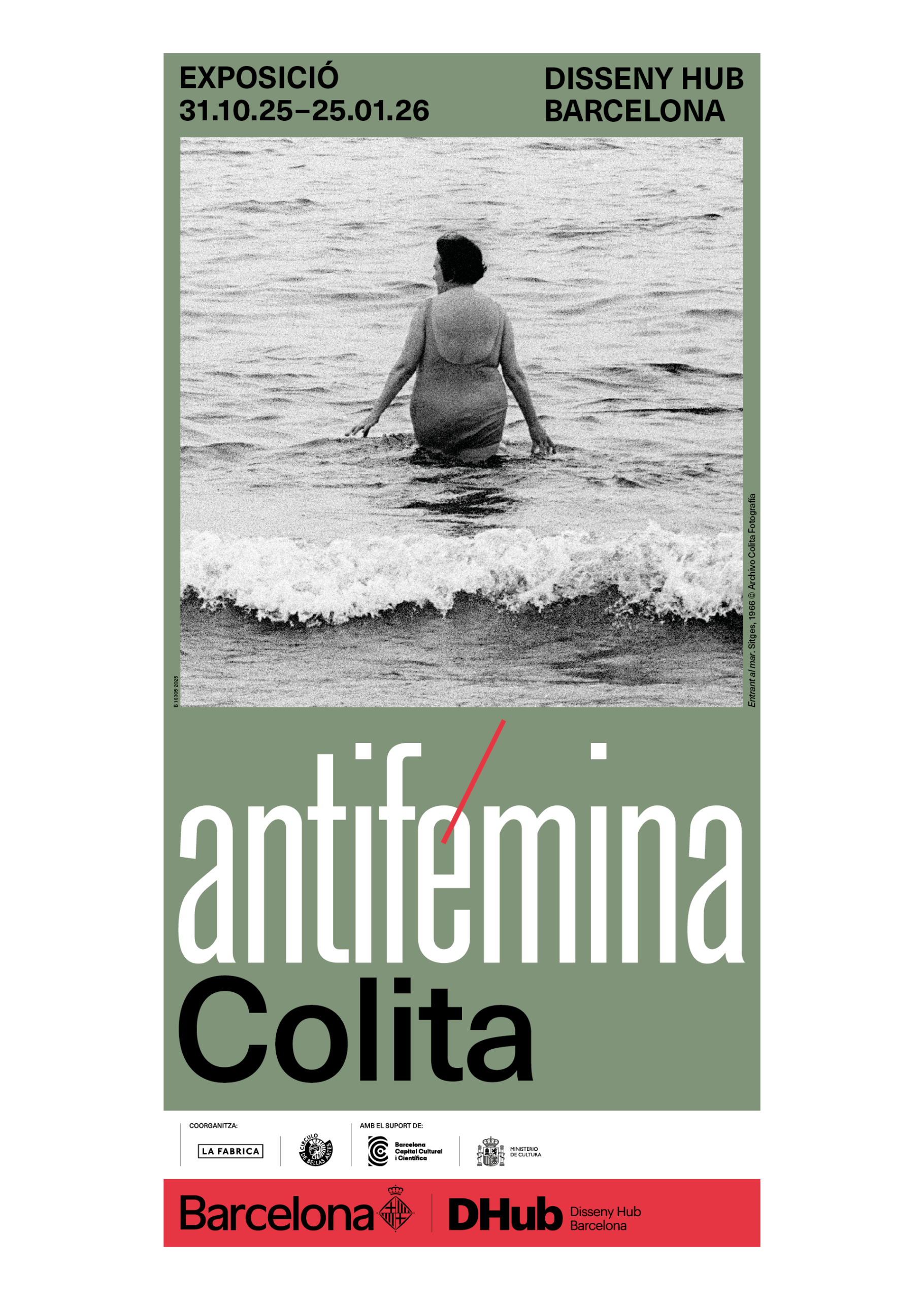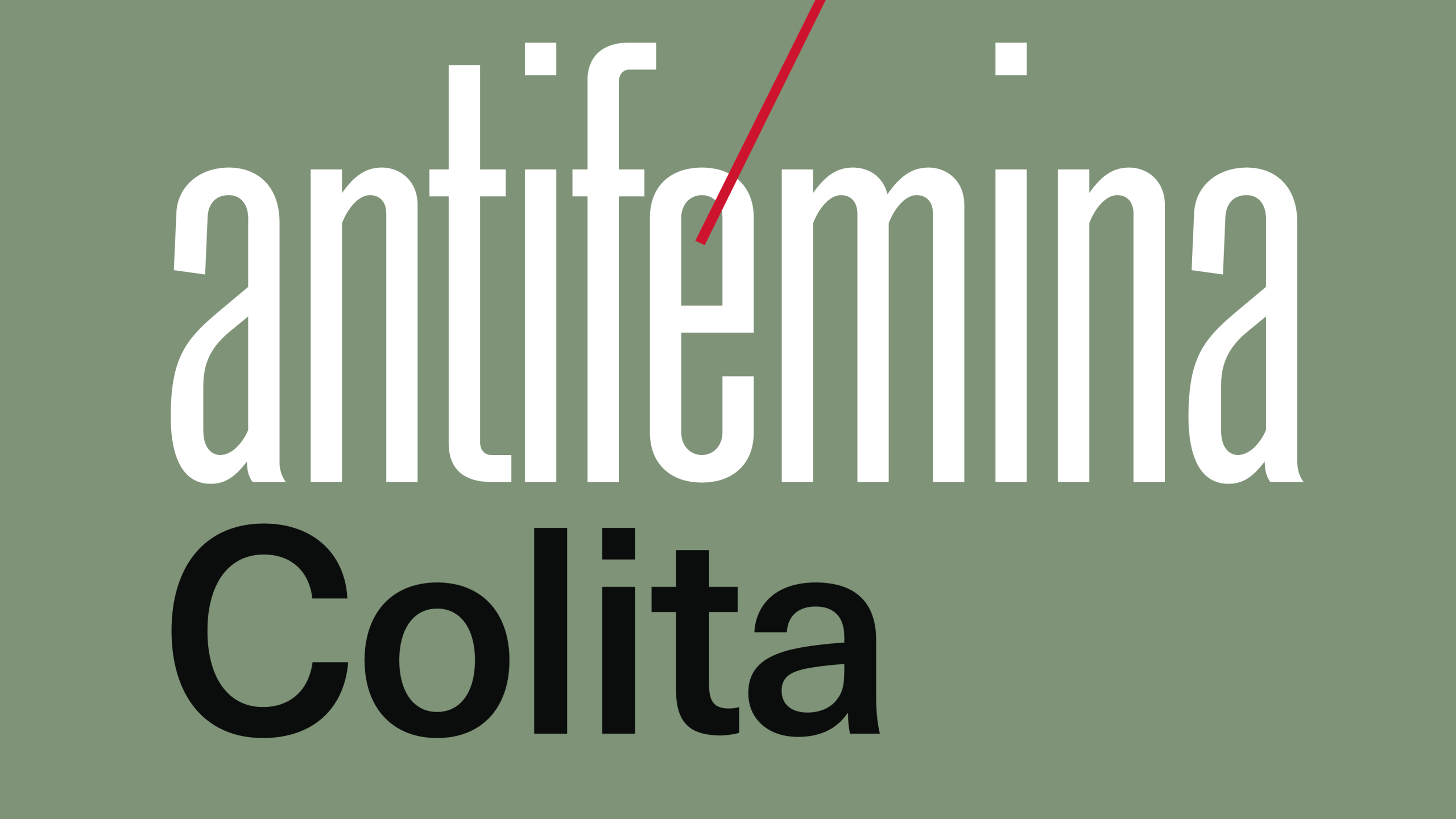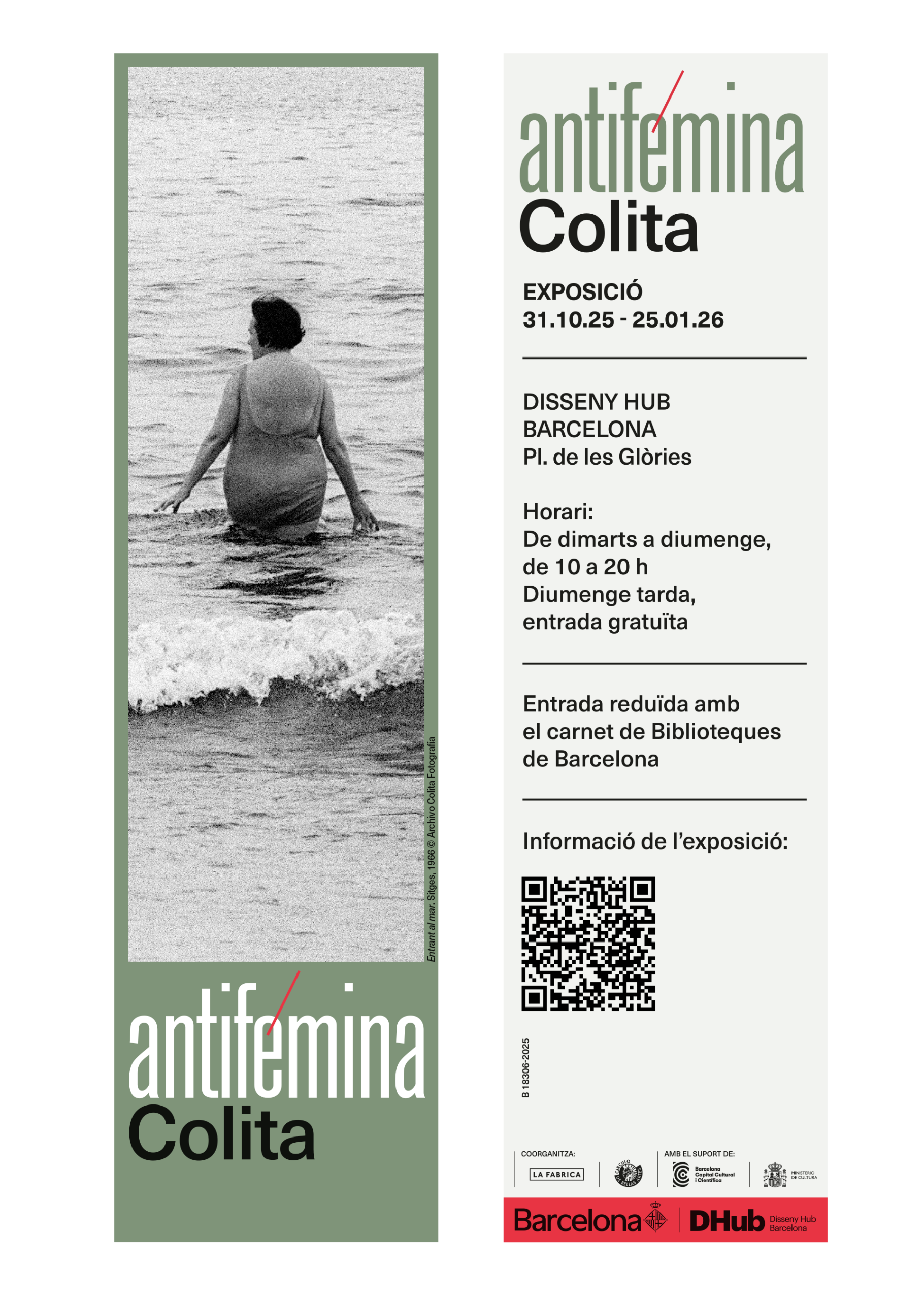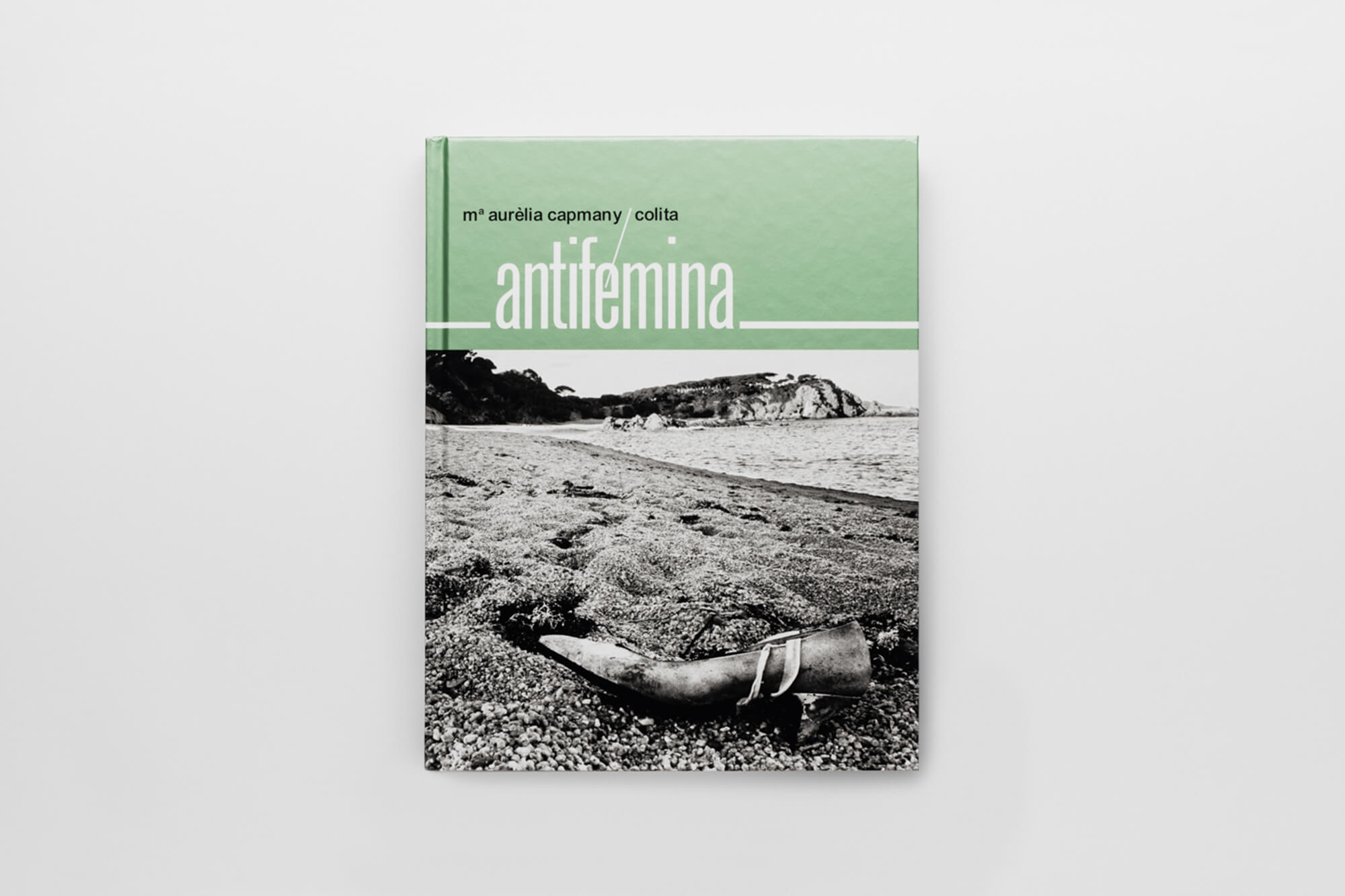
Communication design for Colita. antifémina Exhibition
The exhibition Colita. Antifémina—co-organized by DHub, La Fábrica, and the Círculo de Bellas Artes—highlights the value of a project launched by the photographer Isabel Steva Hernández (better known by her pseudonym, Colita) and the writer Maria Aurèlia Capmany. In 1977, the duo joined forces to create Antifémina, considered the first openly feminist graphic book of the Spanish Transition era.
Despite the fact that the publisher quickly withdrew it from the market, the work became a cult classic for its critical and vindictive spirit. Years later, Colita herself and Francesc Polop—director of her archive and curator of this exhibition—recovered the project. The book was subsequently re-edited and published in 2021 by Terranova and, in 2025, by the Barcelona City Council
The exhibition asserts the ongoing relevance of the book’s critiques and reflections. Through this work, it celebrates the legacy of two brave female intellectuals who fought to dignify the female experience and to speak openly about feminism.
The communication design
The concept for the communication design resides in the restoration of historical memory, “enlightening” the original 1977 publication, by using the same green color and placing the lettering at the center of the identity. The visual identity centers on the revival of the original green color palette and the reconstruction of its iconic lettering. To achieve this, the typography was meticulously redrawn and paired with a contemporary companion—Neue Haas Unica Bold—chosen for its historical connection to the original typeface. This cohesive identity was then adapted across all digital and print formats required for the campaign.